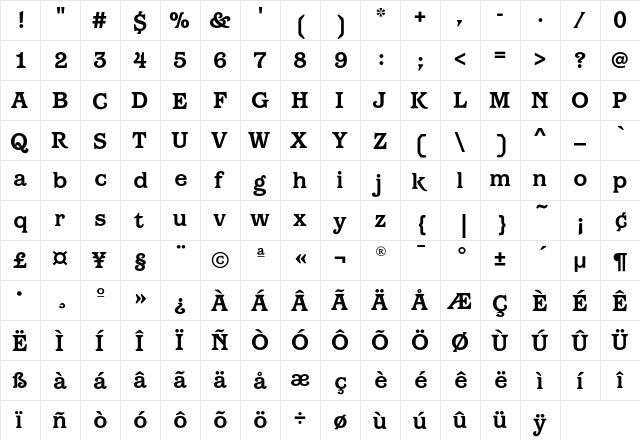
BarcelonaEF-Bold Regular
BarcelonaEF-Bold offers clean, dependable letterforms without strong stylistic allegiance, making it a practical choice for designers who need flexibility. Its bold stroke weight gives it real presence on the page.